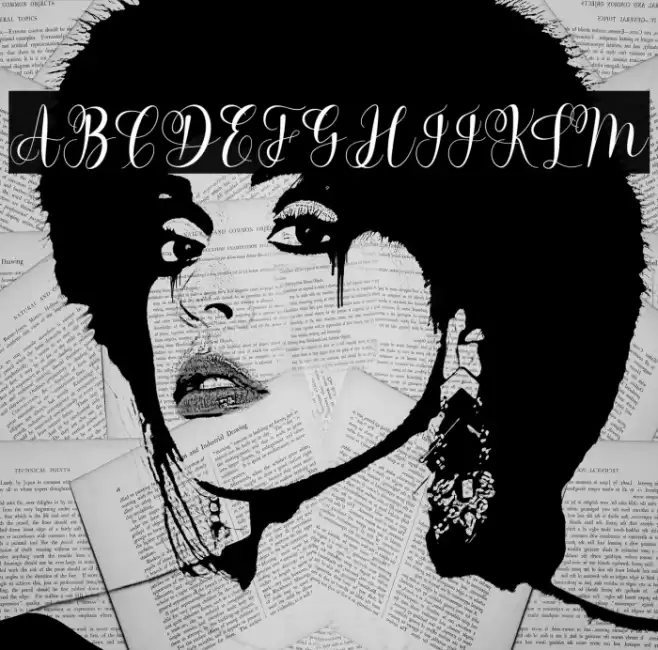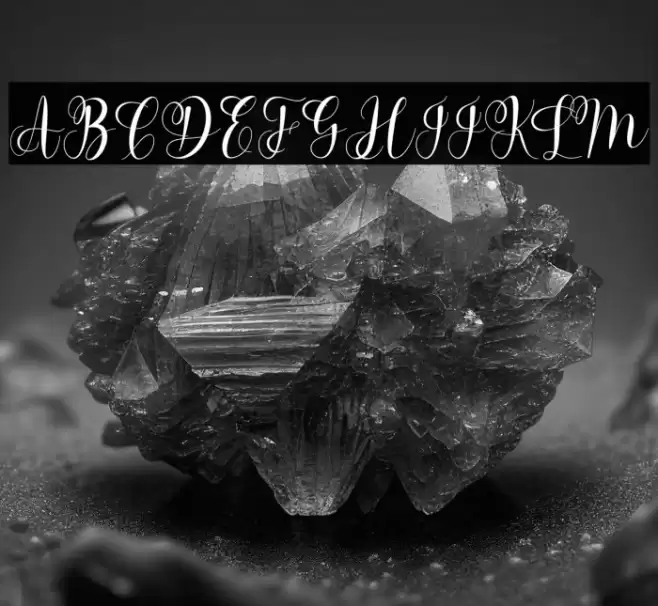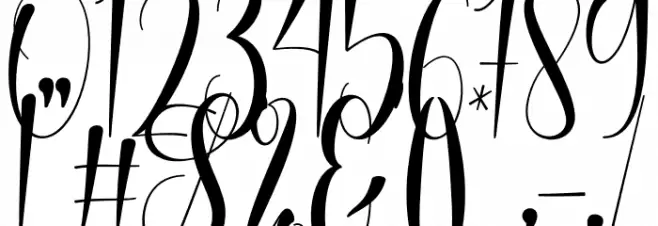
Marlyna Font
Marlyna Description
This elegant script font features a flowing, cursive style with intricate loops and flourishes. The uppercase letters are ornate, with sweeping ascenders and descenders that give a sense of movement and grace. The lowercase letters maintain a consistent style, with smooth, rounded forms that enhance readability while retaining an artistic flair. The numerals are uniquely styled, with varying stroke weights that add a touch of sophistication. Special characters are designed to complement the overall aesthetic, making this font ideal for creative and decorative applications.
A graceful script font with elegant loops and flourishes, perfect for decorative use from Uncategorized fonts.
- Proposed Projects: Ideal for wedding invitations, greeting cards, branding, and logo design.
- Use Case: Logos, Invitations, Decorative text